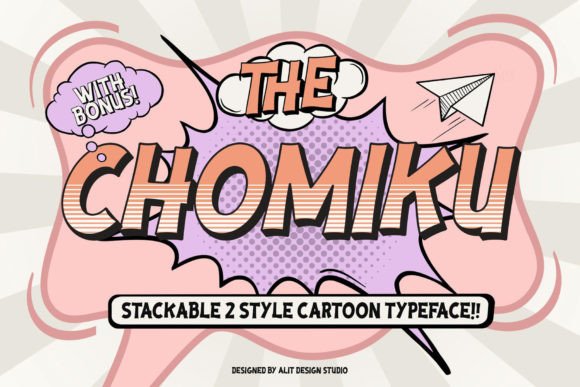
Introducing Chomiku Font: The Perfect Fusion of Funk and Color!
Journey into the whimsical world of Chomiku Font, where vibrant hues and playful characters dance together to create a captivating display font. Bursting with energy and authenticity, Chomiku is the ultimate choice for designers seeking to infuse their creations with a touch of joy and personality.
Unleash the boundless potential of Chomiku and watch as your designs blossom into captivating masterpieces. This chunky lettered font is a true game-changer, transforming ordinary projects into extraordinary expressions of creativity. Witness the magic as Chomiku breathes life into your concepts, adding a sprinkle of delight and a dash of whimsy.
With Chomiku Font, you'll discover a world of endless possibilities, where your imagination can run free. Whether you're crafting eye-catching posters, designing vibrant catalogs, or creating playful social media graphics, Chomiku is your perfect partner in crime. Its versatility knows no bounds, making it the ideal choice for a diverse range of projects.
But what truly sets Chomiku apart is its remarkable ease of use. Encoded with PUA, this font grants you effortless access to a treasure trove of glyphs and ligatures, empowering you to unleash your creativity without any technical hurdles.
So, dive into the vibrant world of Chomiku Font today and unlock a world of endless possibilities. Let your designs dance with joy, your creativity soar to new heights, and your projects come alive with the infectious energy of Chomiku. Embrace the fun, embrace the playfulness, and let Chomiku ignite your imagination like never before!